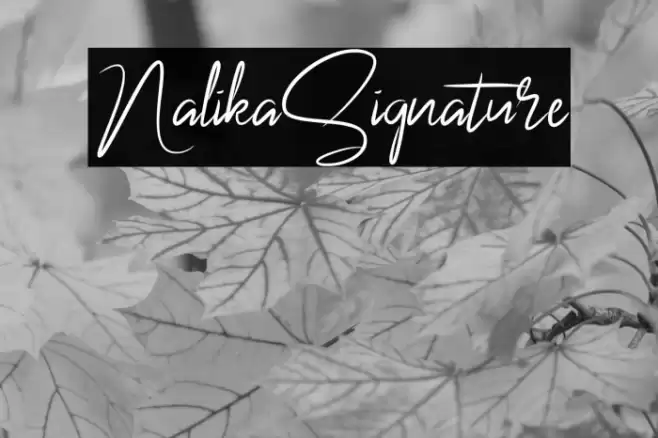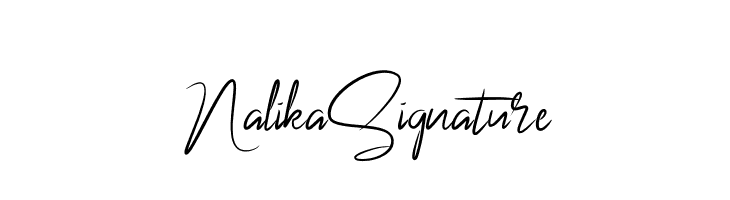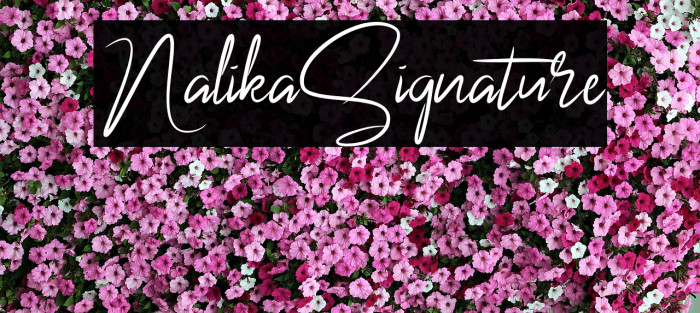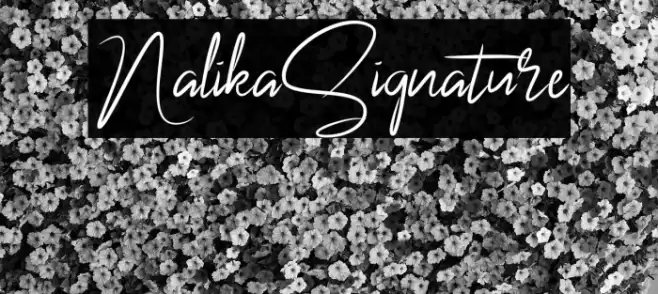
NalikaSignature Font
NalikaSignature Description
This font exudes elegance and sophistication with its fluid, cursive style. The letters are characterized by graceful, sweeping strokes that mimic the natural flow of handwriting. Each character is distinct yet harmoniously blends with others, creating a seamless and artistic appearance. The uppercase letters are particularly ornate, with elongated lines and subtle flourishes that add a touch of drama. The lowercase letters maintain a consistent rhythm, enhancing readability while preserving the font's artistic flair. This font is perfect for projects that require a personal, human touch, such as invitations, greeting cards, or branding materials that aim to convey elegance and creativity.
An elegant, cursive font with fluid, sweeping strokes and artistic flair from Uncategorized fonts.
- Proposed Projects: Ideal for wedding invitations, personal branding, greeting cards, and elegant logos.
- Overall Style: Elegant, Artistic
- Use Case: Logos, Invitations, Greeting Cards